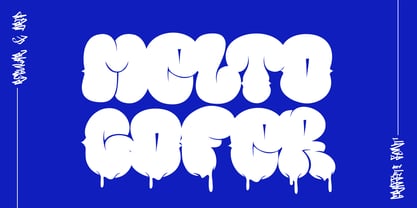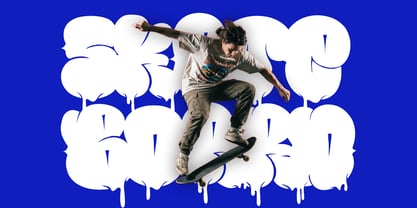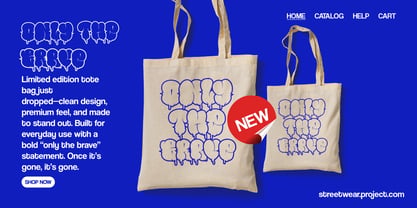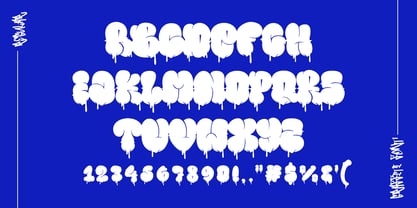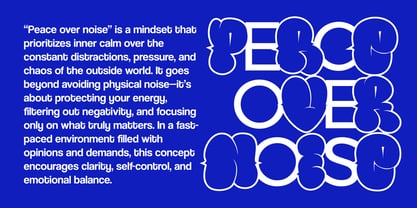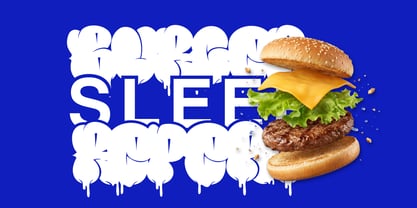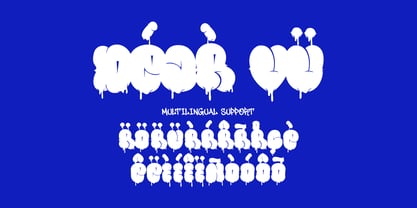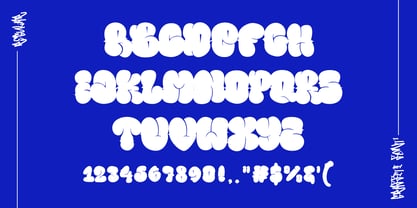
Melto Gofer
by Sipanji21
The Melto Gofer Font Family was designed by Sipanji and published by Sipanji21. Melto Gofer contains 2 styles and family package options. More about this family
Melto Gofer is a bubble graffiti display typeface that embodies the playful and energetic spirit of urban street art. Inspired by classic throw-up graffiti styles, this font combines rounded bubble forms with expressive dripping elements to create a bold and dynamic visual identity.
The defining feature of Melto Gofer is its dual-style system: Regular and Dripping. The Regular style presents solid and smooth bubble letterforms that emphasize readability and structure, while the Dripping style adds expressive paint-like details that introduce movement and artistic flair. This combination allows designers to create diverse compositions within a single typeface.
Melto Gofer includes uppercase characters designed with thick, rounded shapes that create a strong visual presence. The bubble style gives the font a friendly and approachable feel while still maintaining an urban edge. Numbers and punctuation are included, ensuring full functionality across different design applications.
With multilingual support, Melto Gofer can be used across various languages, making it suitable for global projects. This expands its usability for branding, marketing, and creative content.
This font excels in projects that require bold and expressive typography. It is ideal for streetwear branding, posters, album covers, gaming graphics, social media content, and merchandise design. Its playful yet edgy style makes it particularly effective for youth-oriented and trend-driven visuals.
The dripping style adds a unique visual dimension, creating the impression of fresh paint. This enhances the authenticity of the graffiti aesthetic and makes designs feel more dynamic and engaging.
From a design perspective, Melto Gofer works best as a focal point. Its bold shapes naturally attract attention, making it perfect for headlines and key visual elements. Designers can pair it with minimalist fonts to create contrast and balance.
Melto Gofer is more than just a font—it is a creative expression of urban culture. It allows designers to create bold, playful, and visually impactful designs that stand out.